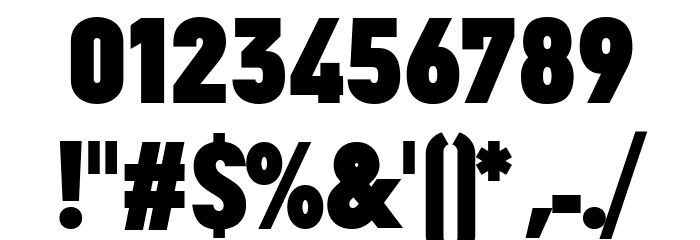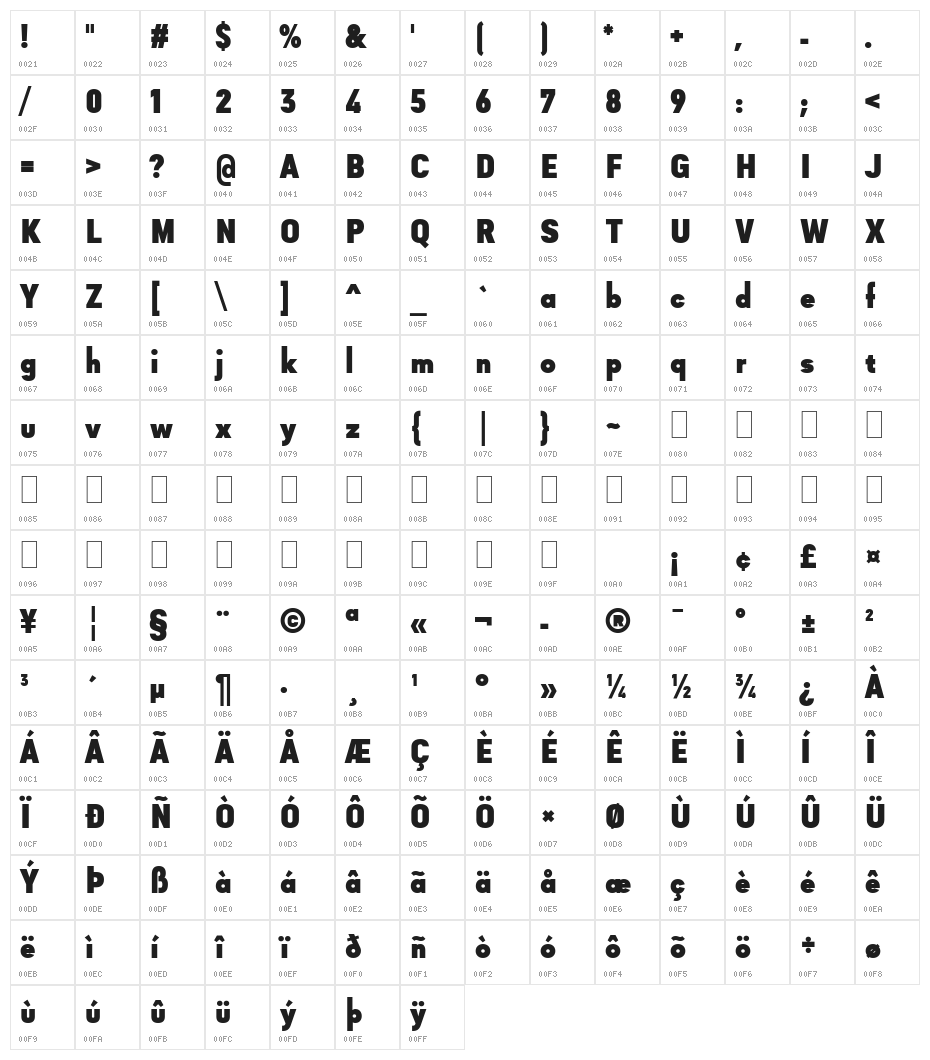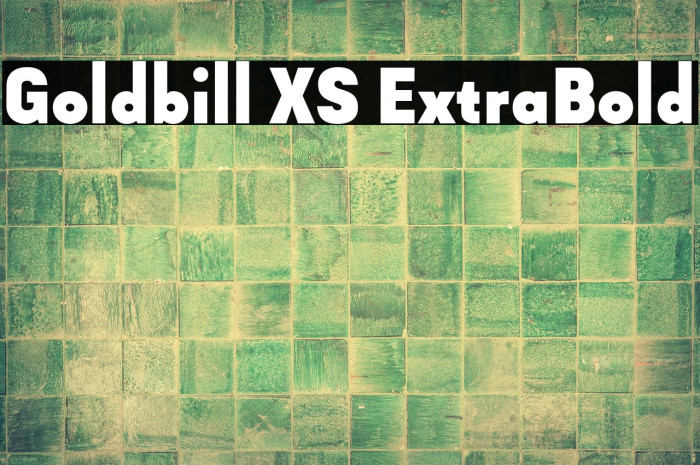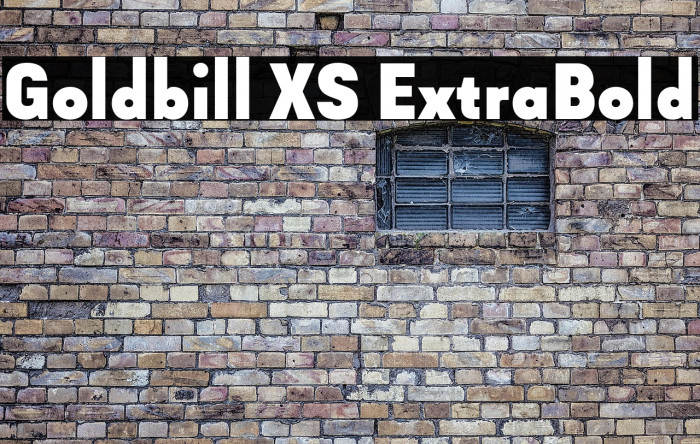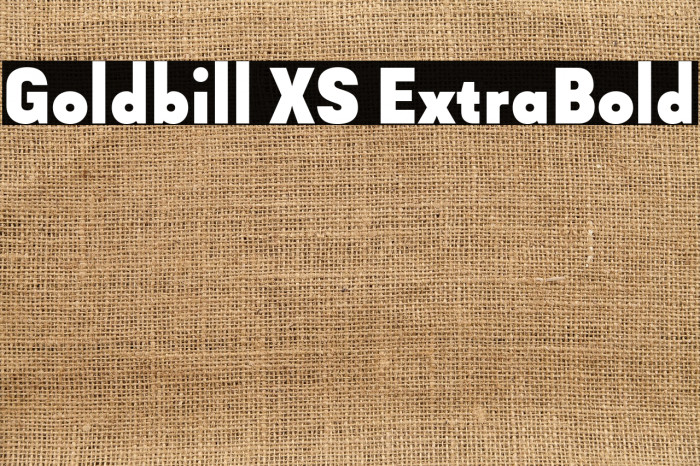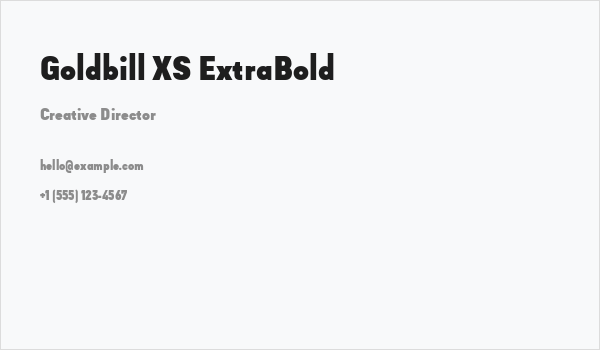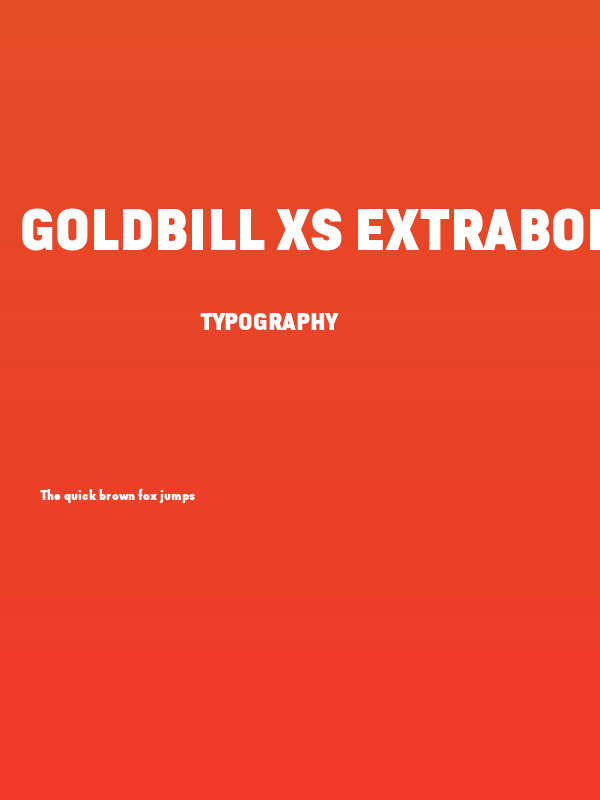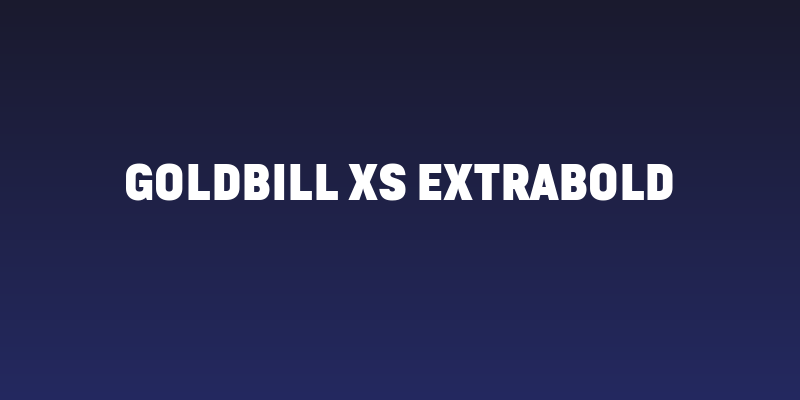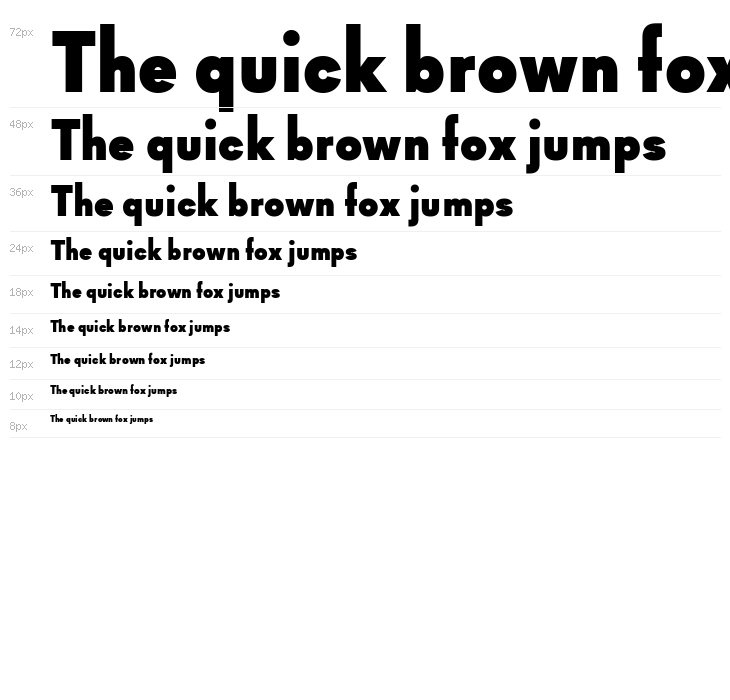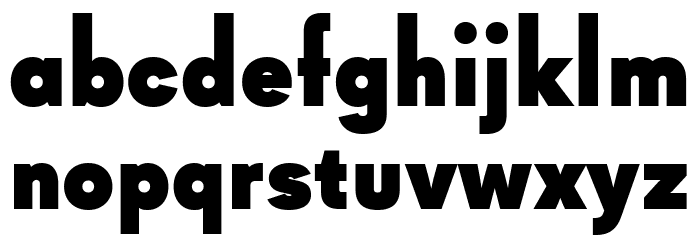
Goldbill XS ExtraBold Font
Goldbill XS ExtraBold Description
This font features a bold and impactful design, characterized by thick strokes and a strong presence. The uppercase and lowercase letters are uniformly bold, creating a sense of stability and confidence. The numbers and special characters maintain the same weight, ensuring consistency across all elements. The overall appearance is clean and modern, with a slight geometric influence that adds to its contemporary feel. The font's design is straightforward, making it highly legible and suitable for various applications where clarity and emphasis are needed.
| Proposed Projects | Ideal for headlines, posters, branding, and advertising where a strong visual impact is required. |